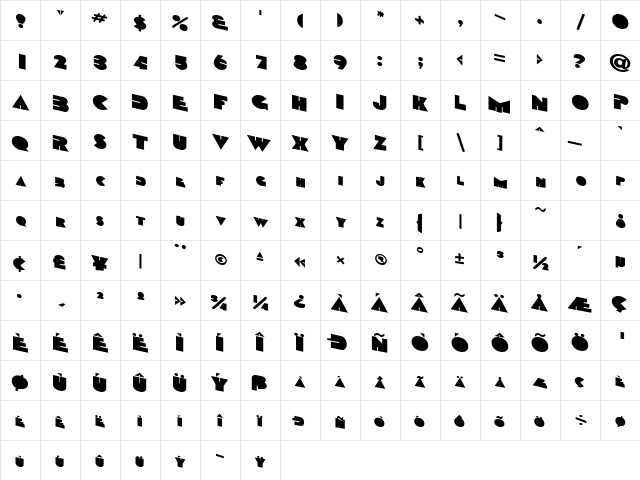
StateOfAffairs122 Bold
Design Context for StateOfAffairs122
StateOfAffairs122 is a composed and adaptable typeface that performs quietly and consistently across a wide range of design contexts. Its bold stroke weight gives it real presence on the page.